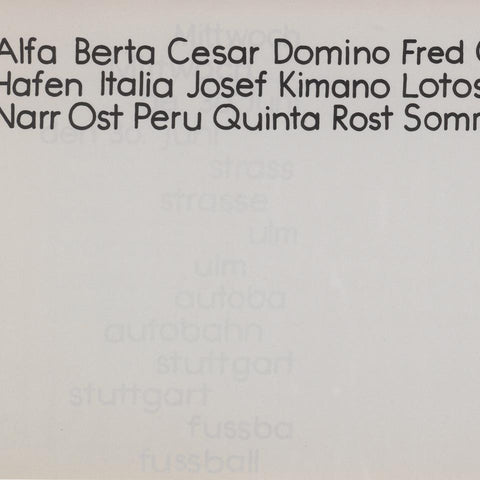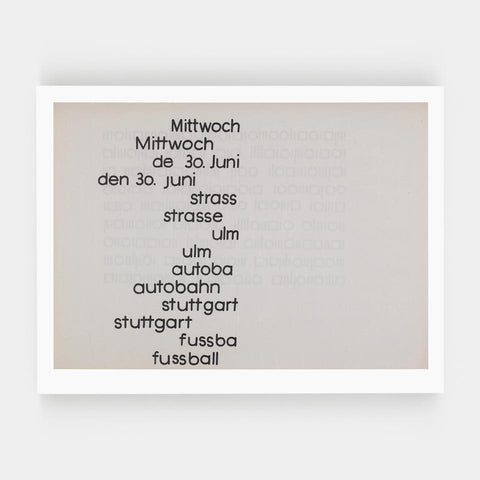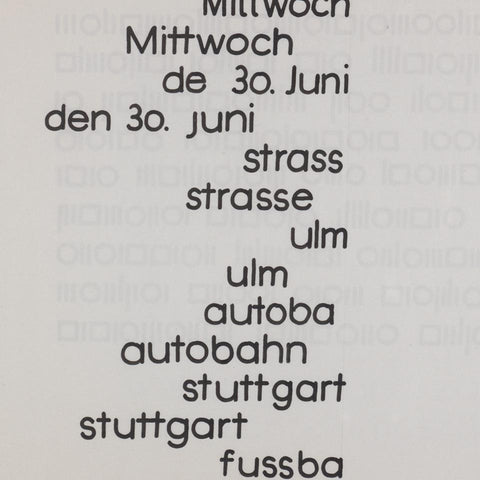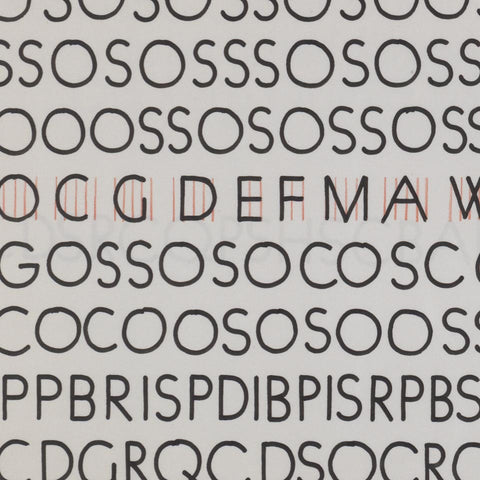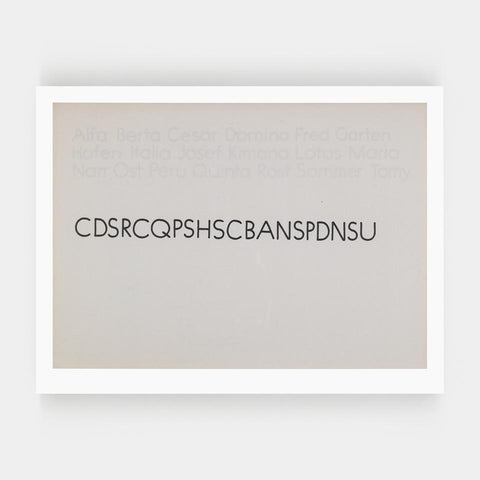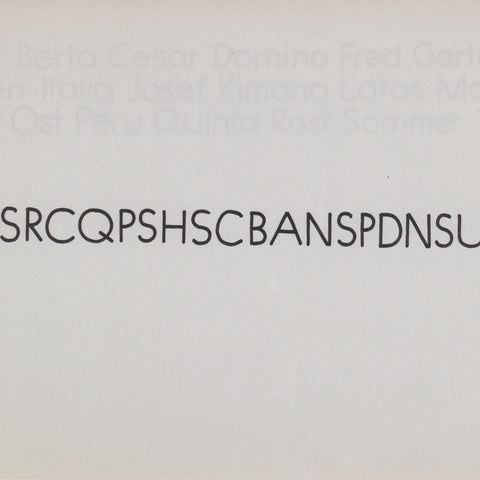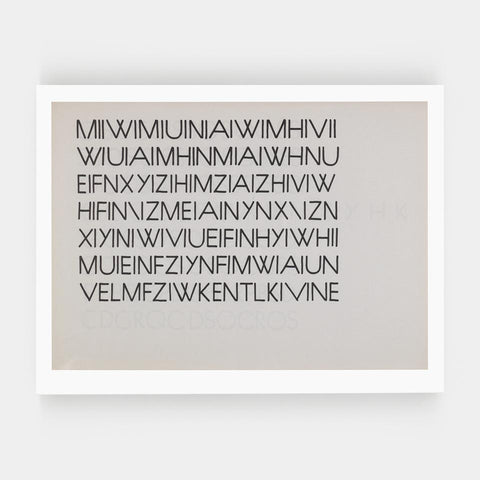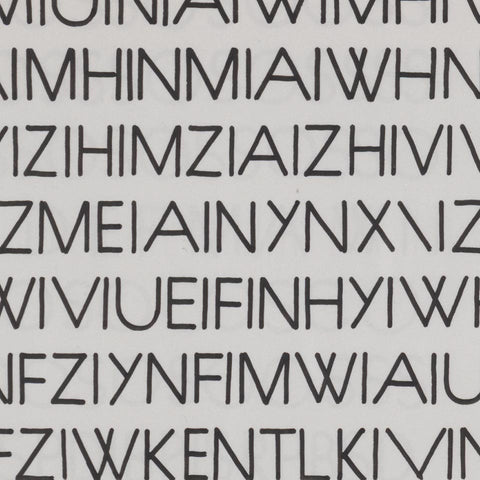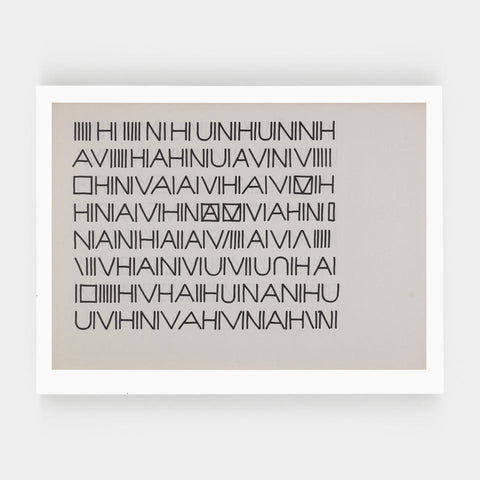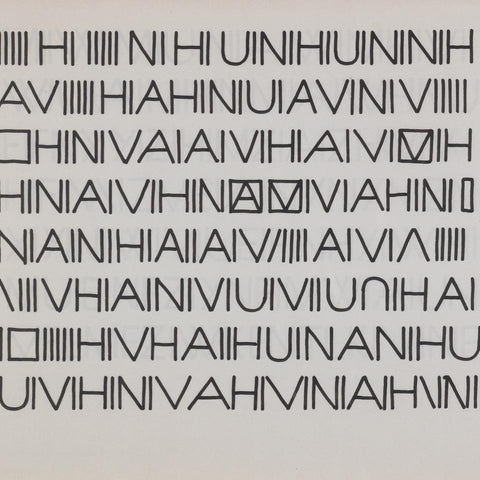
Grundkurs Typographie, HfG Ulm, Otl Aicher (Hans G. Conrad)
Hans G. Conrad was the first student enrolled at the Ulm School of Design founded in 1953 by Inge Aicher-Scholl, Otl Aicher, and Max Bill. Conrad took the basic course in typography with Aicher, keeping an exercise book with the presented lessons. That exercise book is now in the possession of Prof. Dr. René Spitz of Cologne. He made six prints from the exercise book and stamped, signed, and dated them on the back. These are them. They’re a beautiful showing of lettering and type from when people still used pen and paper and taught in-person in a classroom with chalk and a chalkboard. So scarce that even Dr. Spitz forgot about them. (We reminded him when we were looking for details.)
• Note: Signed and dated by Prof. Dr. René Spitz. There is some ghost imaging in the prints themselves which simply mimic the show-through of the original pages of the exercise book. It’s intentional.